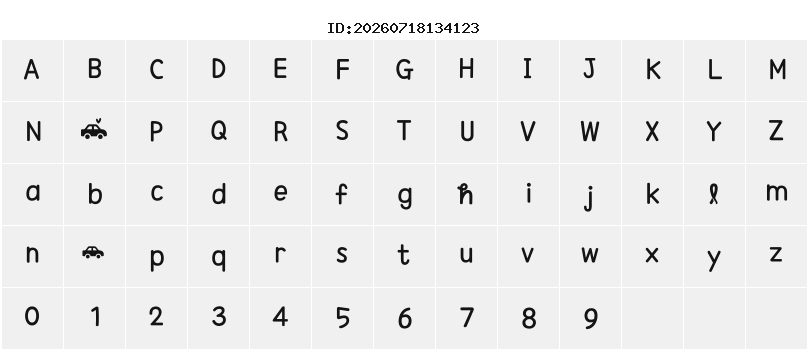
1훈떡볶이 R Preview
• Font Name: 1훈떡볶이 R
• Font ID: HoonDdukbokkiR
• Full Font Name: 1훈떡볶이 Regular
• PostScript Name: HoonDdukbokR
• Character Count: 99
• Manufacturer: HOON DESIGN
About 1훈떡볶이 R.ttf
1훈떡볶이 R.ttf is a modern, elegant sans-serif font designed for ultimate readability and visual harmony. Perfect for branding, headlines, web design, and print materials.